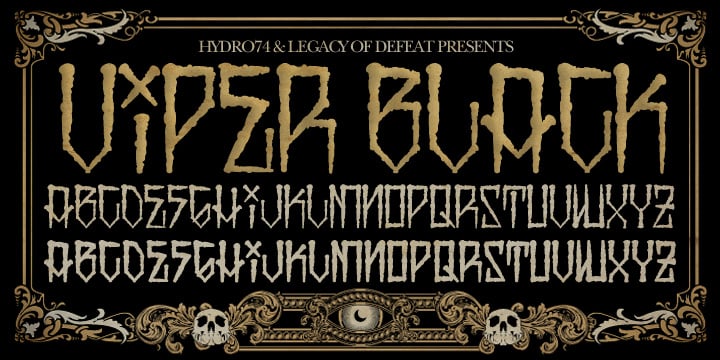
The H74 Viper Black Font is ideal for aggressive automotive branding, extreme sports marketing, action movie posters, gaming industry designs, heavy metal band logos, motorcycle club materials, high-performance vehicle advertising, and intense action-packed campaigns. This powerful typeface excels in projects for automotive companies, extreme sports brands, gaming studios, entertainment industries, and businesses requiring bold typography that conveys speed, power, and aggressive excellence with commanding presence.
What makes the H74 Viper Black Font exciting is its venomous embodiment of raw power with aggressive styling and predatory precision. The font features razor-sharp letterforms with striking angles and dangerous curves that immediately evoke the deadly grace and lightning-fast strike of a viper. Its predatory character and aggressive sophistication make it perfect for brands seeking to convey dominance, speed, and the thrilling appeal of high-performance excellence. The font's venomous energy and striking presence create immediate impact in competitive markets demanding bold visual statements.
The H74 Viper Black Font family includes aggressively-designed variations: Light Strike, Regular Venom, Bold Attack, Heavy Predator, Ultra Black, and Extreme versions. Each style maintains the font's viper character while offering different levels of aggressive intensity and predatory expression for diverse high-performance applications. The family also features sharp symbols, aggressive ornaments, speed elements, and venomous decorative details that enhance extreme and automotive design projects.
Whether you're developing aggressive brand identities, creating high-performance marketing materials, or designing extreme promotional campaigns, the H74 Viper Black Font Free Download provides the ultimate solution for projects requiring venomous, powerful typography. This exceptional typeface brings genuine predatory aggression to design work, making it an essential resource for designers working with automotive brands, extreme sports companies, gaming industries, and organizations demanding the striking visual impact of deadly precision and lightning-fast performance.